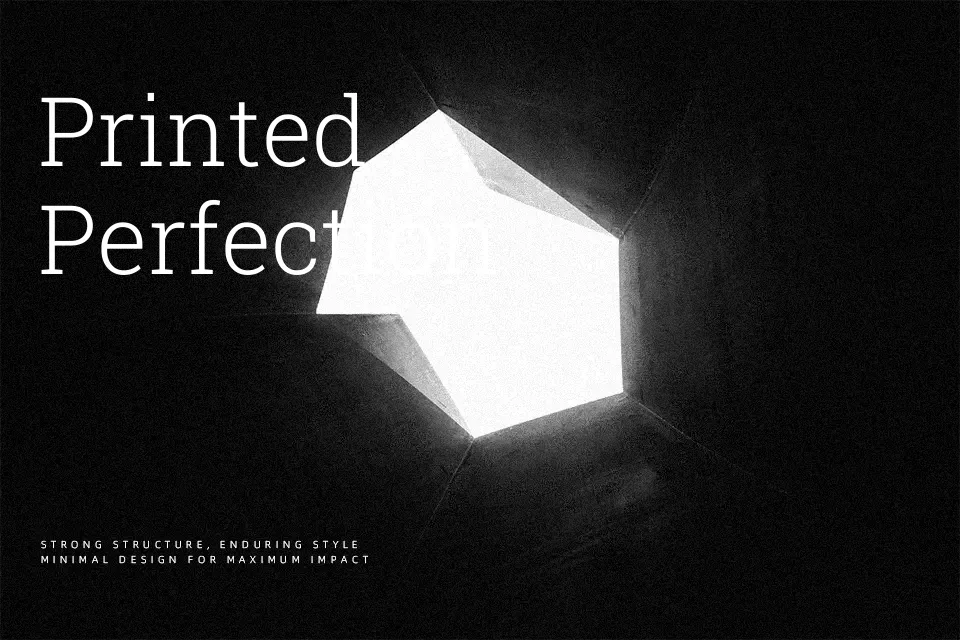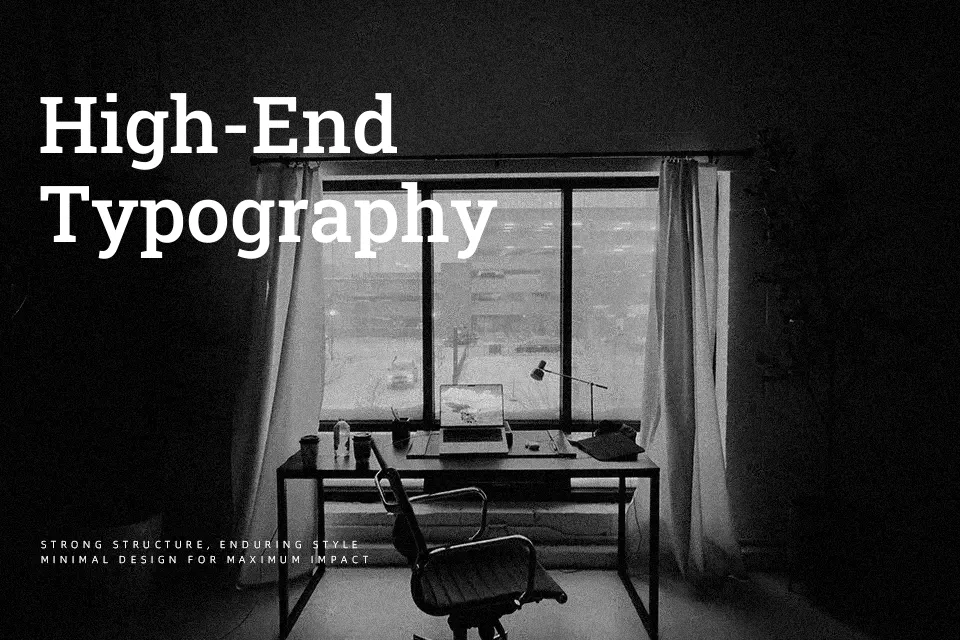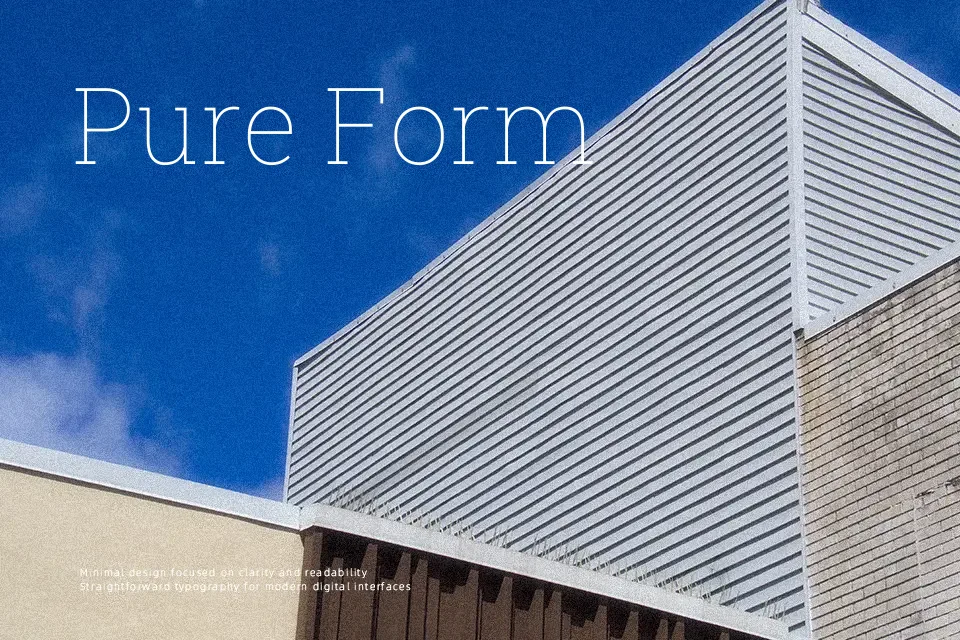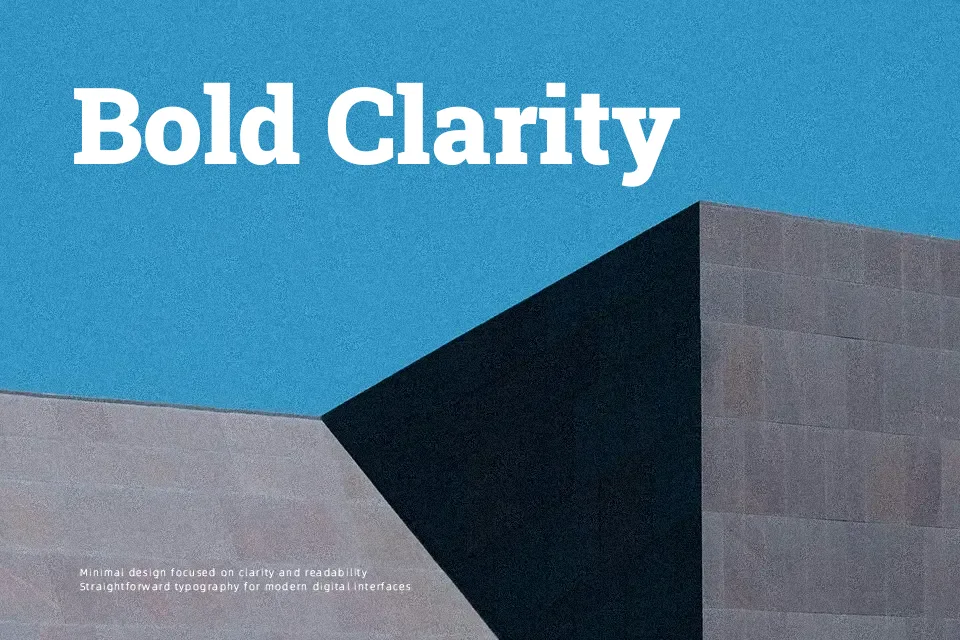
Roboto Slab Font
Designed by Christian Robertson
Roboto Slab combines a mechanical skeleton with blunt slab serifs and open curves, so text feels orderly without becoming stiff. Strokes are relatively even, spacing is consistent across weights, and the counters stay open, which keeps paragraphs readable on both screens and print. Visually it leans modern and functional rather than decorative, so it suits news-style editorial, documentation sites, dashboards, and product storytelling where clarity matters more than personality. I tend to use it for headlines and short sections of body text; in very long-form reading or highly expressive branding, its rigid rhythm can feel a bit dry compared to more humanist serifs.
UI dashboards and product pages with a structured feel
Editorial-style blogs and tech articles that need a solid voice
Headlines paired with a neutral sans in design systems
Highly expressive branding that needs strong personality
Very long-form literary text where a softer serif reads better
Playful kids or craft designs that rely on decorative letterforms
Perfect for body text, editorial, and headline, with a clean and serif style.